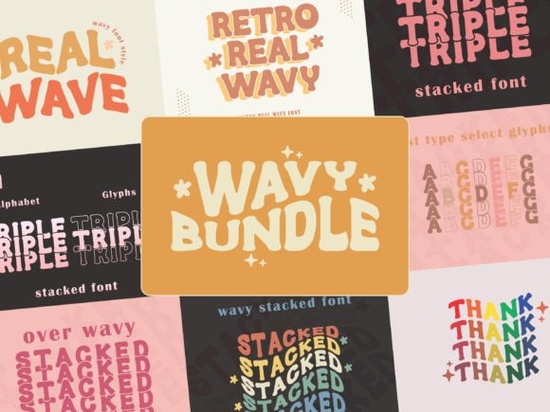
If you’ve been searching for a fun, playful font that stands out on its own without heavy layering or complex effects, the Wavy Stacked Font is worth a closer look. It’s a pre-built stacked style that gives your text a built-in wave motion and a clean, readable silhouette. The bundle includes five font styles and seven unique glyphs, so you can mix and match to get exactly the vibe you need for t-shirts, social media graphics, or product labels.
What exactly is a stacked font and why do designers love it?
A stacked font already comes with each letter arranged vertically or with a staggered, layered look. Instead of manually stacking text in your design software, you simply type and the font does the alignment for you. The Wavy Stacked Bundle takes this idea further by adding a gentle wave curve to the letters, making the design feel motion-friendly and whimsical. For print-on-demand sellers, this saves hours of reshaping outlines or hand-lettering each variation.
Because the font handles the stacking, you can focus on color choices, backgrounds, and mockups. The seven alternate glyphs let you swap in different letterforms for the same character, so no two words look exactly alike. This little detail makes a big difference when you want a handmade, imperfect feel without doing the work by hand.
Which projects fit best with this wavy stacked style?
This font works especially well for:
- Children’s product designs – bright, bouncy, and friendly appearance.
- Event posters and party invitations – the wave adds a celebratory, casual mood.
- Social media quote cards – short phrases look punchy and attention-grabbing.
- Stickers and apparel – the stacked shape allows for compact one-liner layouts.
- Digital planners and bullet journals – playful headers without using clip art.
Because the font comes in five styles (likely including regular, bold, outline, shadow, and maybe a distressed version), you can pair a solid letter with an outline overlay to create depth. Print-on-demand sellers can use this to simulate layered vinyl or screen-printed effects directly from their typing.
How does the Wavy Stacked Font compare to similar display fonts?
Can beginners really use these glyphs and style variations?
If you’re new to using alternates, start with a simple phrase and swap in one or two unique glyphs to see how the wave interacts. The stacked nature of the font means you don’t need to align anything manually; just type and adjust size. For crafters and small business owners, this is a low-risk way to add professional-looking typography without hiring a designer.
Where should you place this font in your workflow?
If you sell print-on-demand, try using the Wavy Stacked Font for short phrases on mugs, tote bags, or pillow covers. The wave motion photographs well on curved surfaces. For digital products, incorporate it into quote templates for Instagram or Pinterest – the stacked shape often fits perfectly inside a square aspect ratio.
Because the font includes five styles, you can create a single design with multiple layers: use the solid style for the main color, the shadow style slightly offset for depth, and the outline style for a border effect. All from one font file – no need to duplicate text layers manually.
Once you have the Wavy Stacked Font installed, try pairing it with a clean sans-serif for secondary text. The contrast between the wavy headline and a stable body font creates a balanced, professional layout that still feels fun.